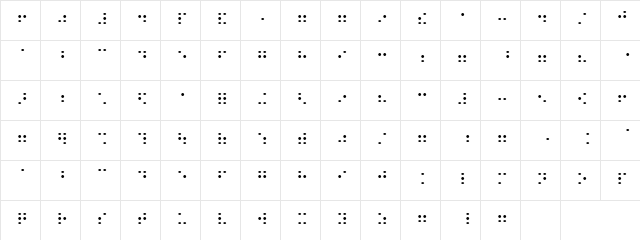
BraillePlainHC Regular Font Preview
BraillePlainHC Regular
BraillePlainHC Regular Font Details
Design Context for BraillePlainHC Typeface
BraillePlainHC is a composed and adaptable typeface that performs quietly and consistently across a wide range of design contexts.